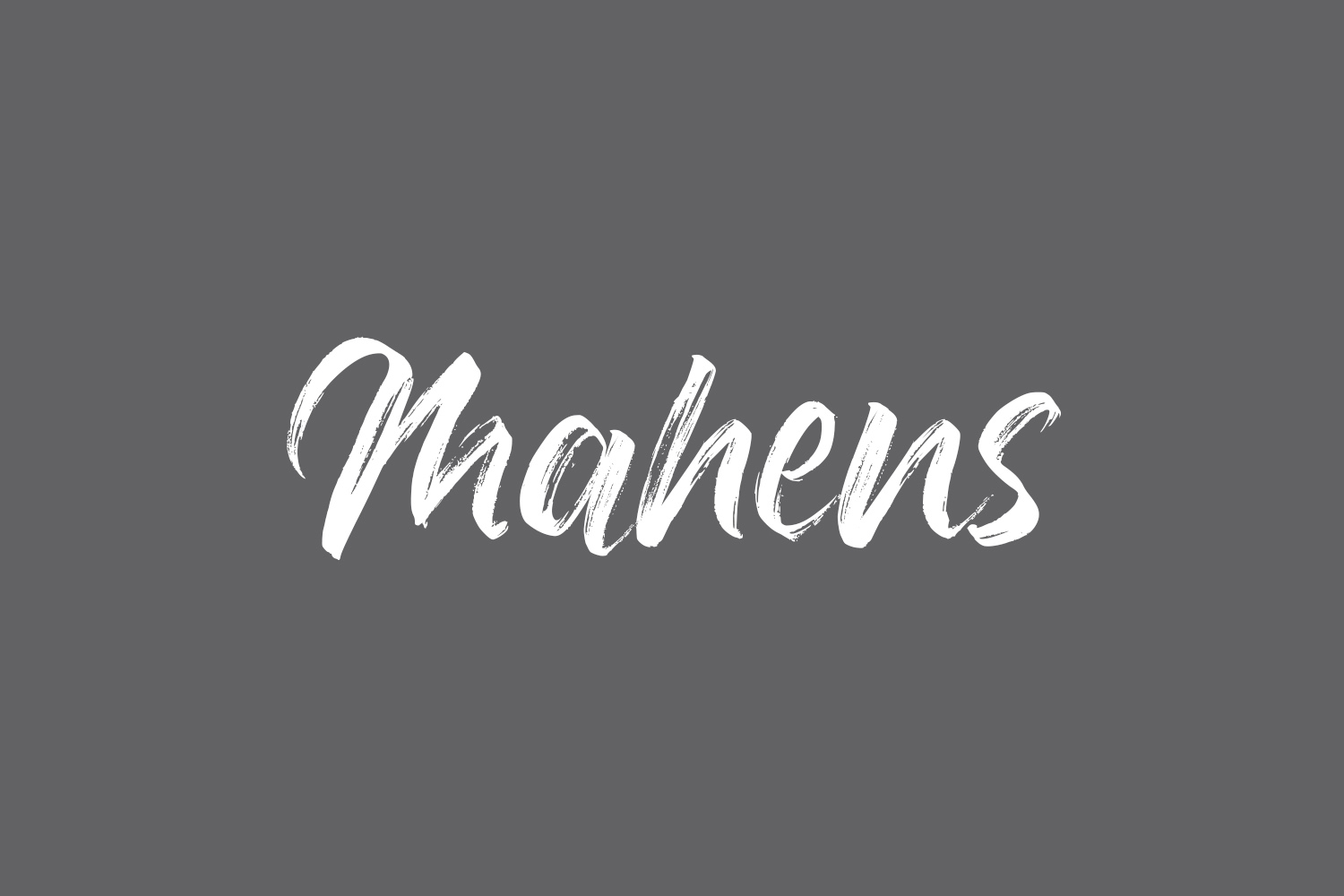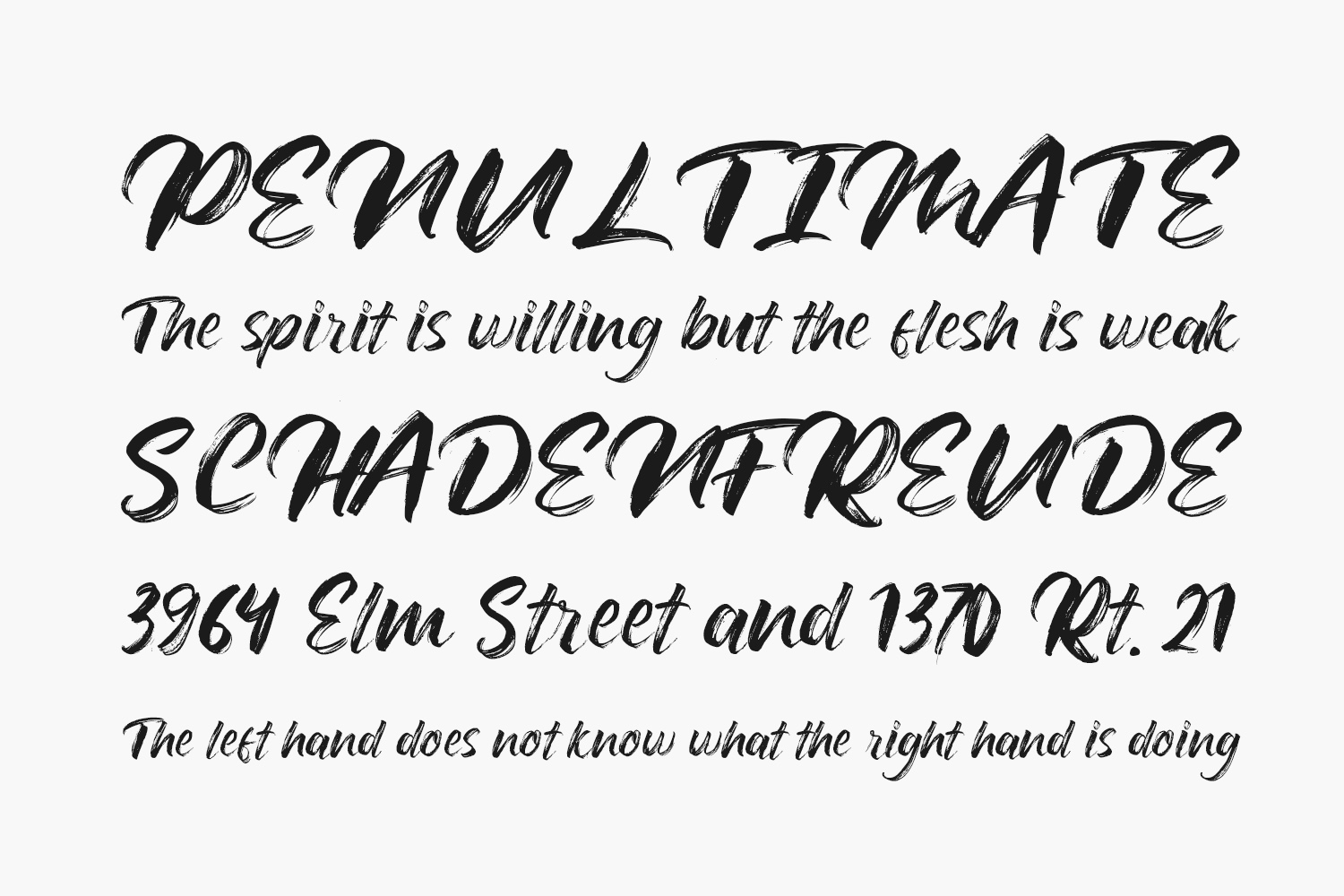
Mahens Free Font is an intriguing brush-style script font with a modern appearance. Fall in love with its authentic look & feel. Mahens Free Font was designed by Debut Studio and is free for personal use only. Please purchase the full version for commercial use.